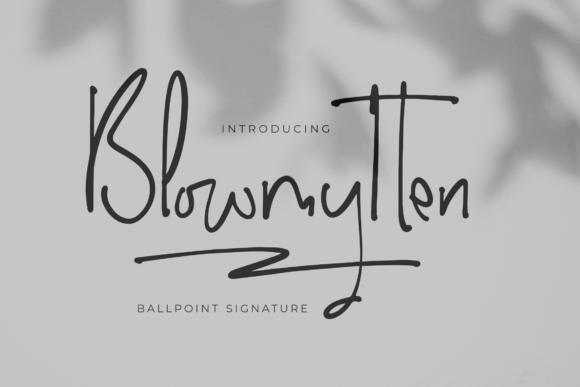
The Perfect Script Font for Your Next Creative Project
Have you ever stared at a blank canvas, feeling like the perfect font is just out of reach? You know, that elusive script font that elevates your design from good to great? I’m here to tell you that your search is over – at least when it comes to one incredibly elegant script font: Blowmytten.
Blowmytten Font is a stunning addition to any designer’s toolkit, perfect for logos, branding projects, and a wide range of other creative endeavors. Whether you’re designing homeware, product packaging, or greeting cards, this lovely font is sure to add a touch of sophistication and whimsy. And the best part? It’s surprisingly versatile, making it an invaluable asset for designers looking to add a little extra flair to their work.
Key Features of Blowmytten Font
- Unique Characteristics: The Blowmytten Font features a distinctive, hand-drawn style with intricate details and flourishes, making it perfect for creative and artistic designs.
- Font Style: The Blowmytten Font is available in both regular and bold weights, allowing designers to add depth and emphasis to their designs.
Blowmytten Font Review
As a designer, I was excited to try out the Blowmytten font. Here’s my honest review:
- ✨ Unique character: The Blowmytten font has a distinctive, playful feel that’s perfect for creative projects. Its irregular shape and varied letterforms add visual interest and make it stand out.
- ✨ Versatility: This font can be used in a variety of contexts, from digital design to print materials, and still looks great.
- ✨ Friendly tone: The font’s friendly tone makes it perfect for projects that require a approachable and inviting feel.
- ⚠️ Limited legibility: At small sizes, the font’s irregular shape can make it harder to read, which may be a concern for text-heavy projects.
- ⚠️ Limited support: The font may not support certain languages or character sets, which could be a limitation for international projects.
Overall, I think the Blowmytten font is a great addition to any designer’s toolkit. While it may have some limitations, its unique character and versatility make it a valuable resource for creative projects. With careful use, I think it can add a lot of visual interest and personality to your designs.
The Blowmytten Font is ideal for creative projects that require a unique and eye-catching font. Some common use cases include:
– Infographics and visualizations
– Digital signage and advertisements
Alternatives to “Blowmytten Font” for Designers
Pacifico is a beautiful, elegant script font perfect for creating a luxurious and sophisticated look. It is ideal for use in branding, invitations, and other high-end designs. Pacifico has a more refined and classic feel compared to Blowmytten Font, which has a more playful and casual tone.
Great Vibes is a modern script font that is great for creating a fun and energetic vibe. It is perfect for use in social media graphics, advertisements, and other designs where you want to convey a sense of excitement and playfulness. Great Vibes has a more dynamic feel compared to Blowmytten Font, which has a more relaxed and casual tone.